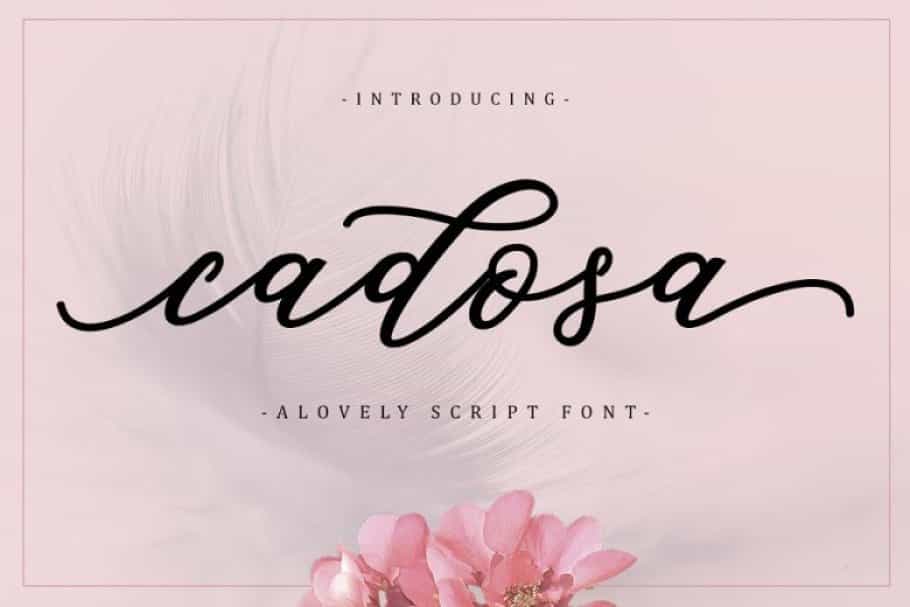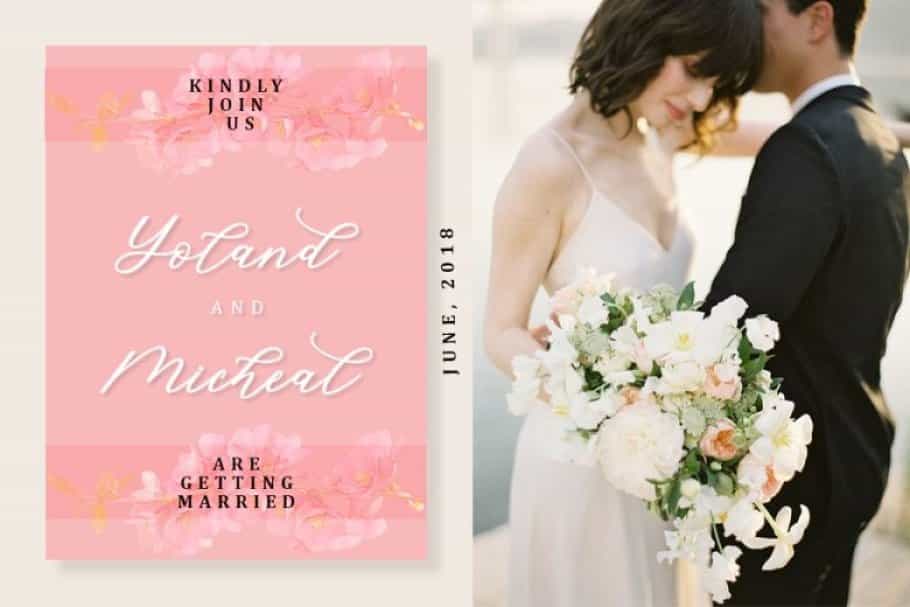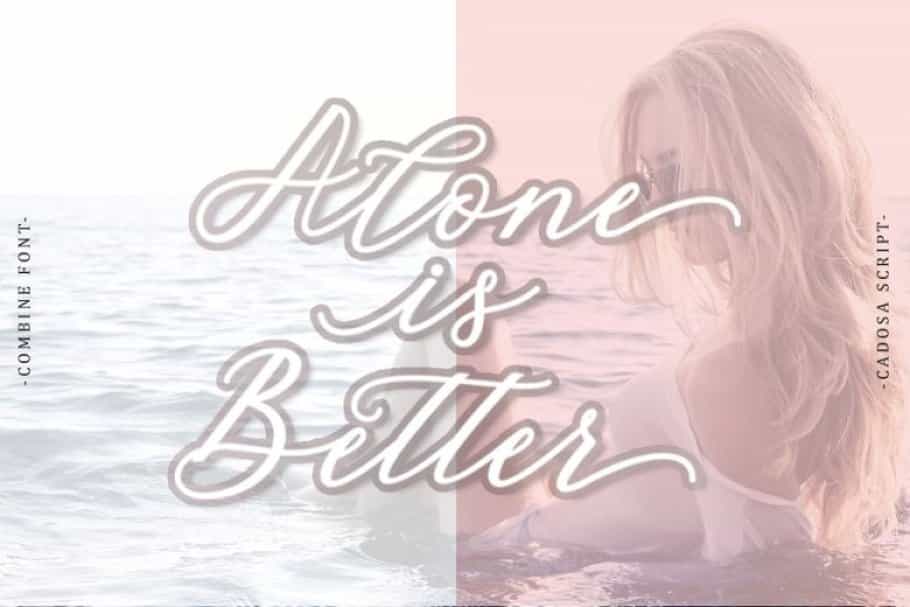
Introducing Cadosa Font. Cadosa is a contemporary calligraphy font. Cadosa is a great font for logotype, website header, fashion design,wedding card design and many more. Bellisia has a refined style, it is also accompanied by the Cadosa font. It includes both lowercase and uppercase letters of full set as well as many punctuation marks, numerals and multilingual support.